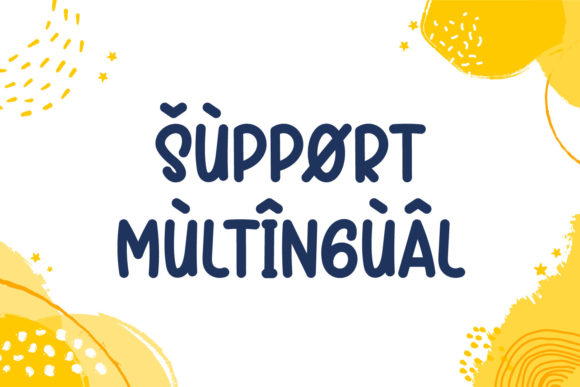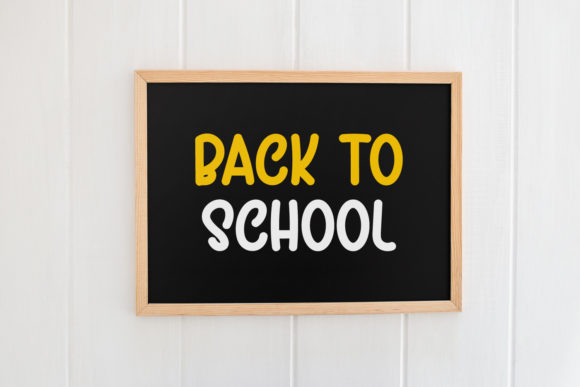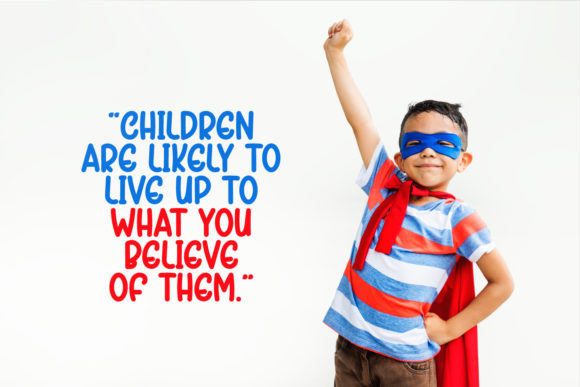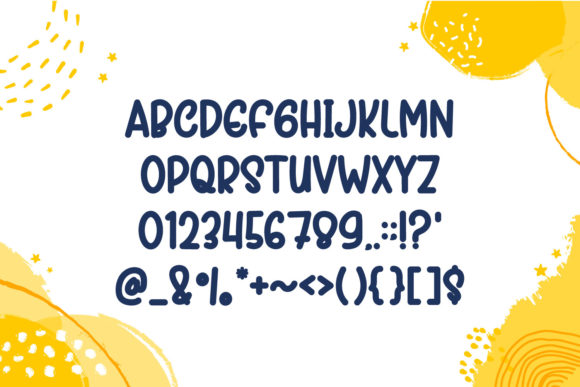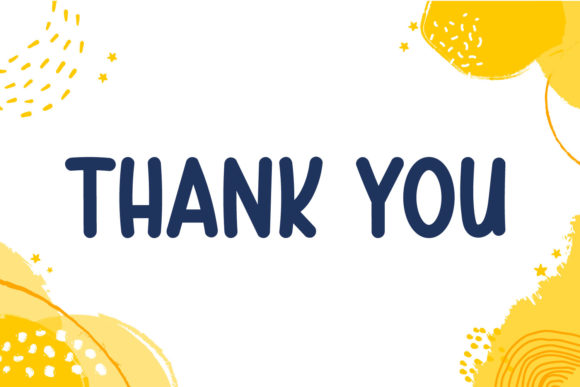
Introduction to Rainday Font
Rainday is a cute, paint brushed display font.
Whether you use it for cartoon related designs, children games or just any creation that requires a lovely touch, this font will be an amazing choice .
Key Features of Rainday Font